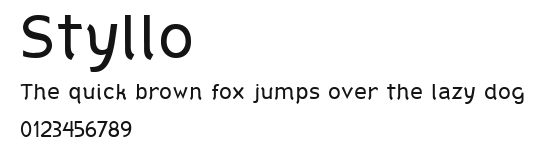
• Font Name: Styllo
• Full Font Name: Styllo
About Styllo.ttf
Styllo.ttf is a modern, elegant sans-serif font designed for ultimate readability and visual harmony. Perfect for branding, headlines, web design, and print materials.